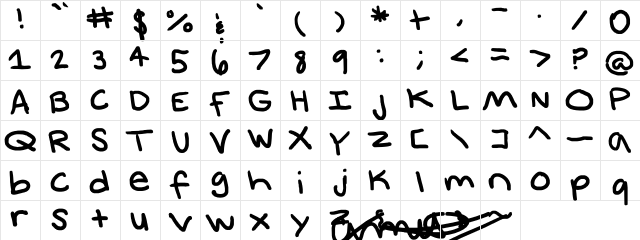
uglyyy Regular
Design Context for uglyyy Typeface
uglyyy is a composed and adaptable typeface that performs quietly and consistently across a wide range of design contexts.